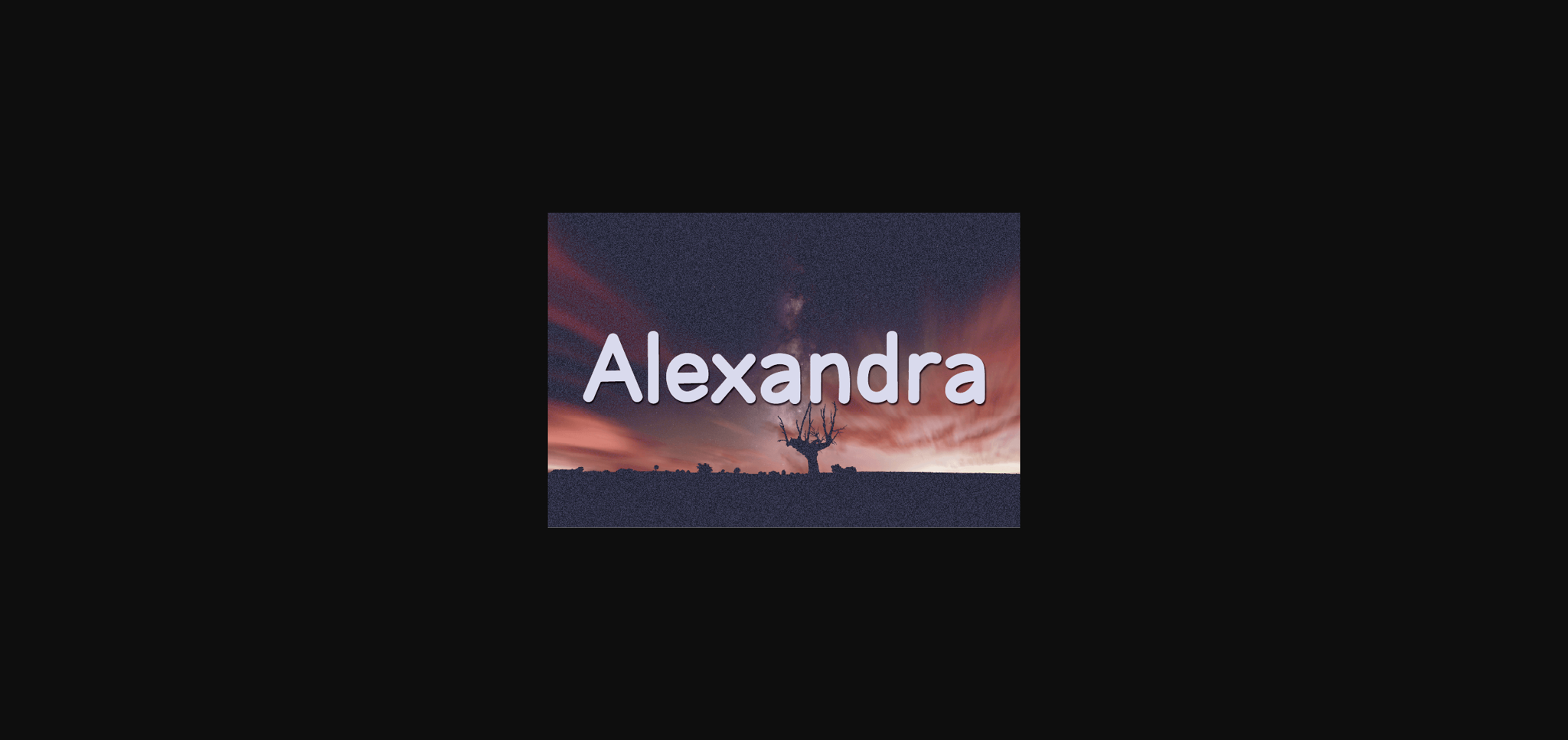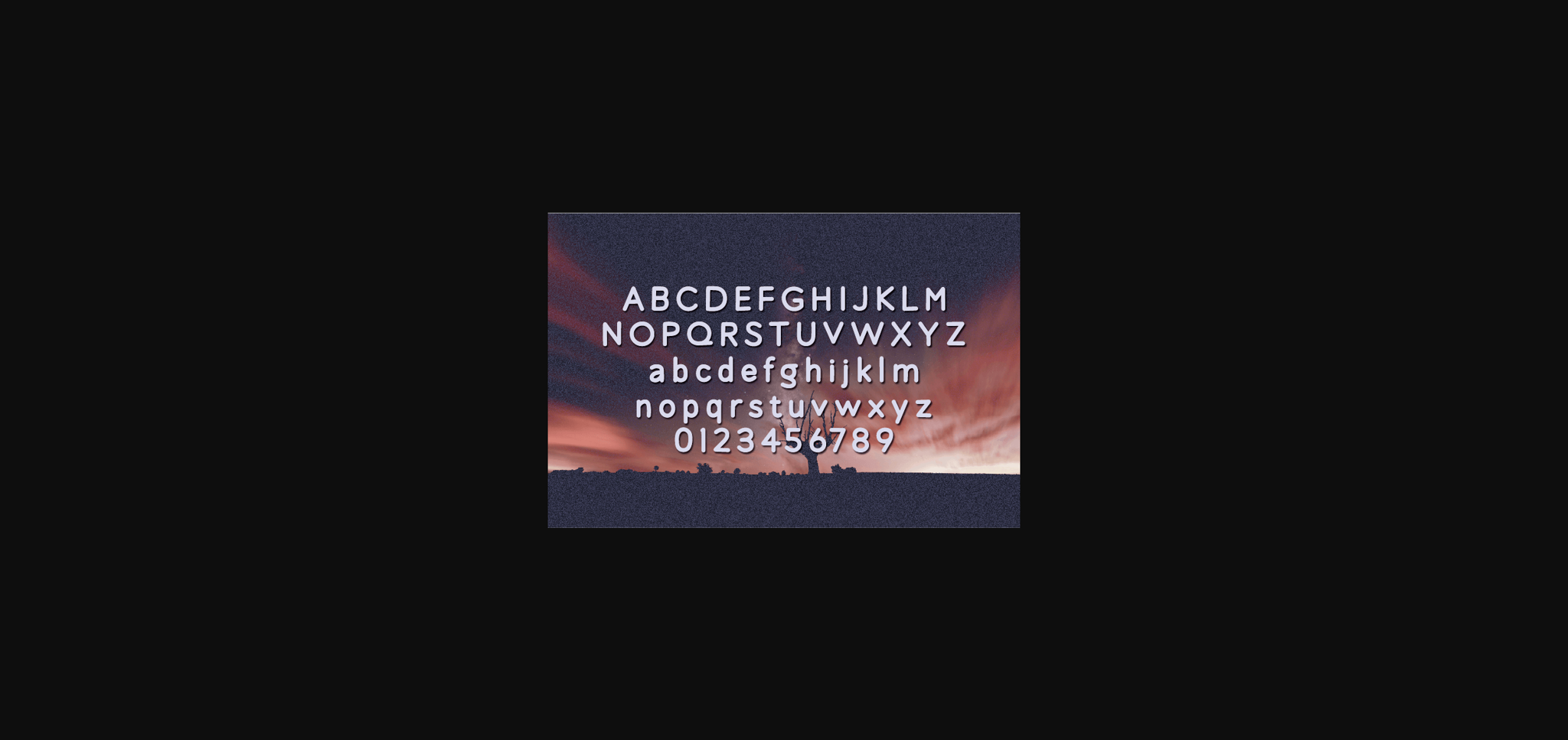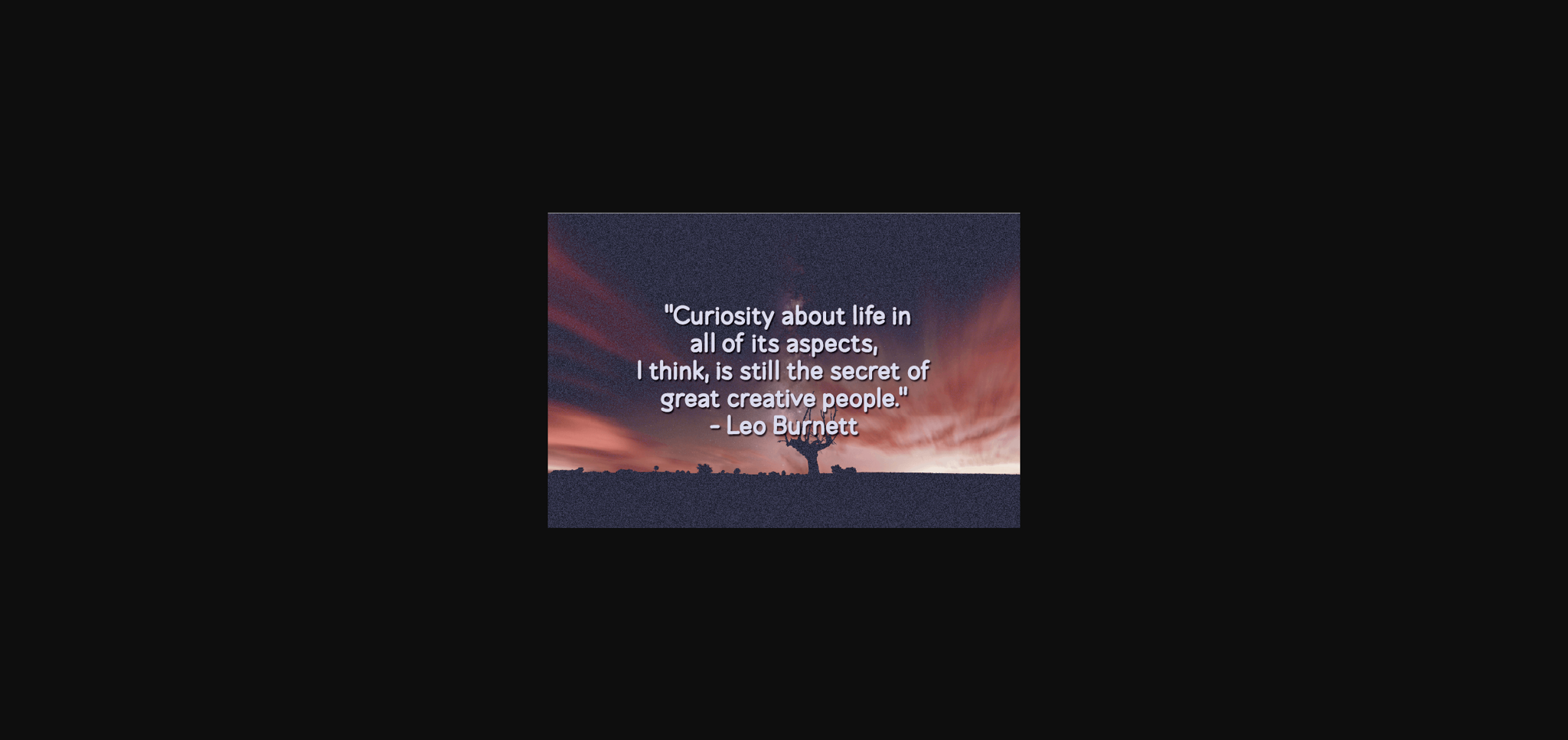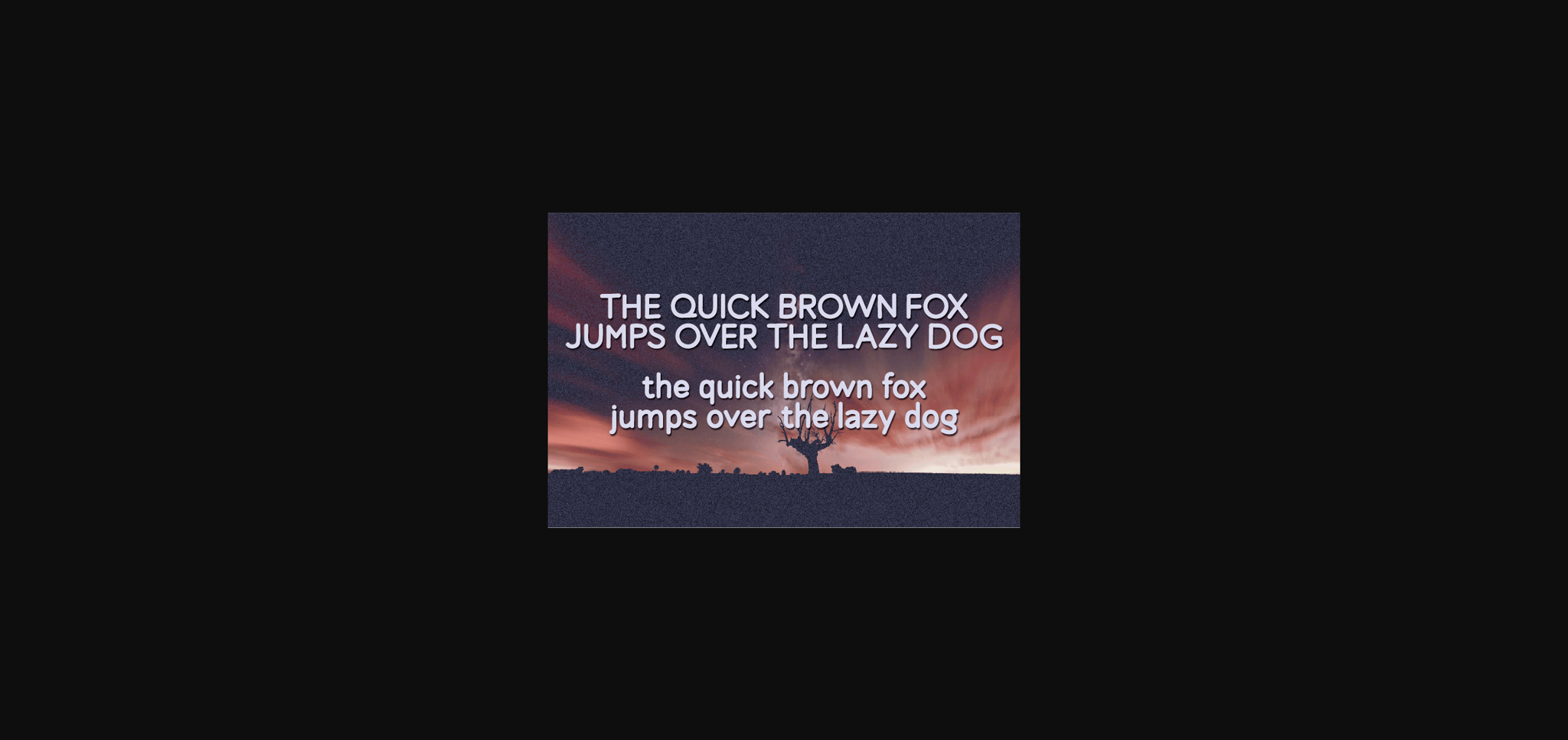
HomeSans Serif FontsAlexandra Font Sans Serif Fonts Alexandra Font FacebookXPinterestWhatsApp 1 of 6 ... Alexandra Font Poster 2... Alexandra Font Poster 3... Alexandra Font Poster 4... Alexandra Font Poster 5... Alexandra Font Poster 6... About Alexandra Font Alexandra is a natural sans serif font made without changing a single node in each character’s indentation – this makes this font very interesting and unique. Perfect for quotes, notes, tees, and any product design. DOWNLOAD NOW People also explored Procreate Font Guard Christmas Story Font Fancylotte Font Hellitos Font Leave It out Font Snowland Font Yearlong Font Jeanuary Font 370 0 TagsAlexandra Font Previous articleAldora FontNext articleNectarios Font LEAVE A REPLY Cancel reply Comment: Please enter your comment! Name:* Please enter your name here Email:* You have entered an incorrect email address! Please enter your email address here Website: Save my name, email, and website in this browser for the next time I comment. Personal Use Free Manhattan Personal Use Free Read more about this font Joystix Monospace Personal Use Free Read more about this font Hillgates Personal Use Free Read more about this font Xplor Personal Use Free Read more about this font BLOG 5 Fonts That Will Dominate Design Trends in 2026 5 Fonts for 2026 That Will Dominate Design Trends Typography plays a critical role in visual communication, and as we look ahead to 2026, it’s... Best Fonts for T-Shirt Design – Top 2025 Picks How to Cut Any Font on Cricut: Convert a Font to SVG (Free) Using Fonts in Digital Marketing: Tips to Strengthen Your Brand Identity